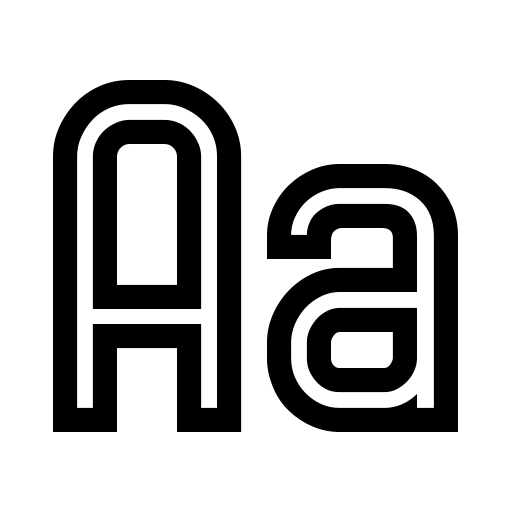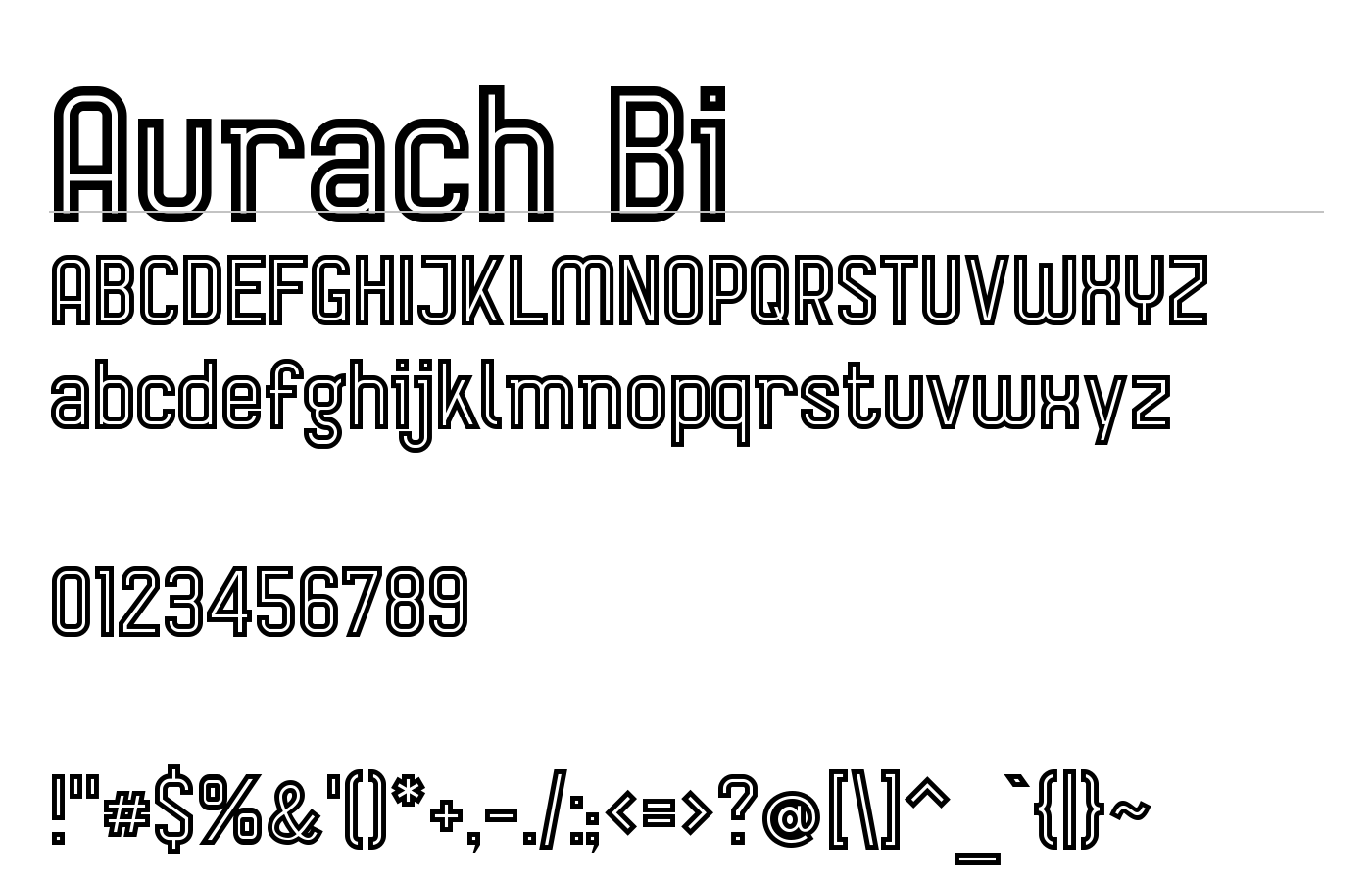
Aurach Bi is a distinctive sans serif font characterized by its bold, double-outline letters that create a striking and modern geometric look. With a condensed width and tall x-height, it delivers excellent readability while maintaining a futuristic and playful vibe, making it ideal for eye-catching logos, headlines, and creative branding projects. Its unique style works best where a strong, contemporary statement is needed without sacrificing clarity.
Aurach Bi Font
About Aurach Bi Font
| Designer | Peter Wiegel |